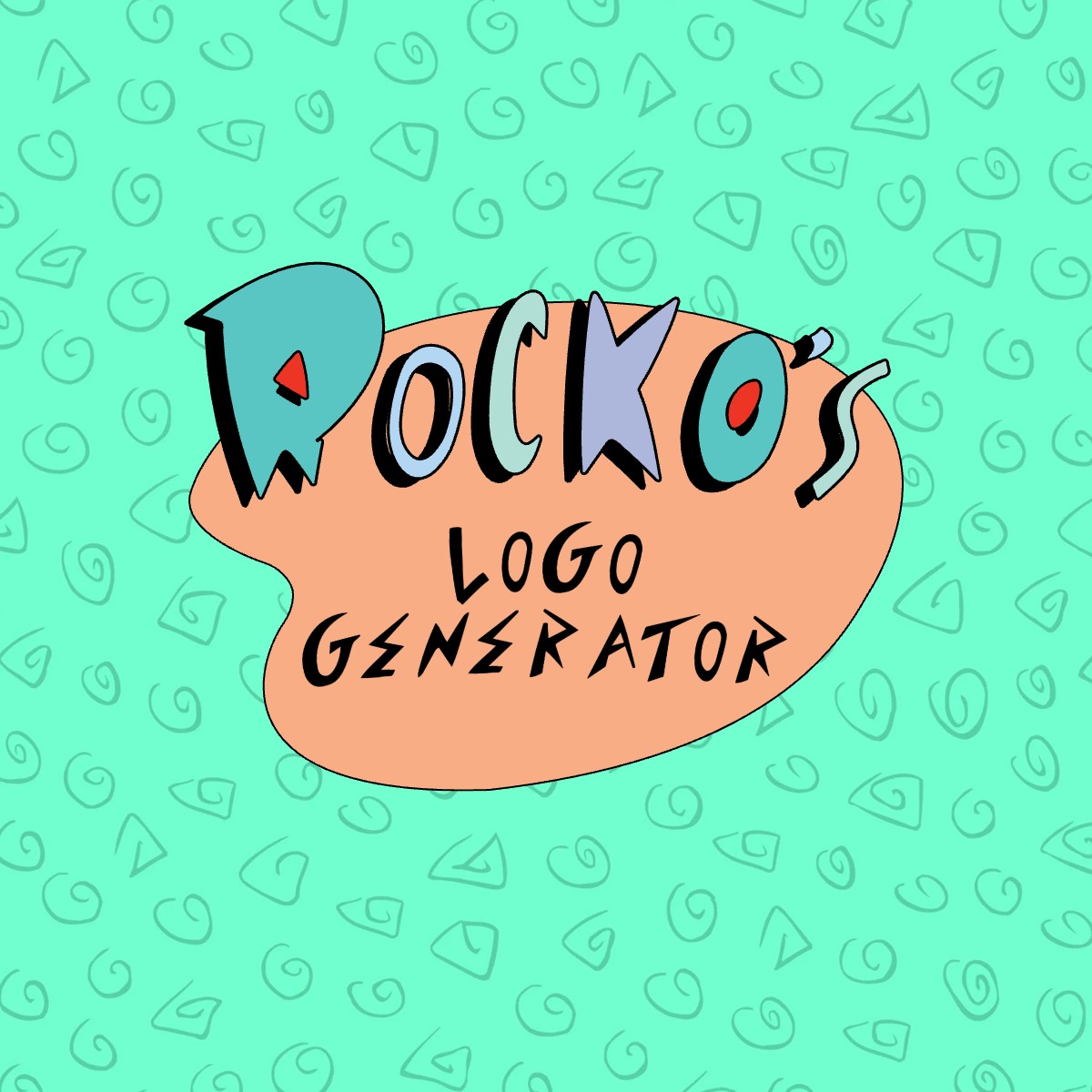
Bring Back a 90’s Classic with the Rocko’s Modern Life Logo & Font Generator.
Ahead of its time and unusually “adult” for a kids cartoon, Nickelodeon’s Rocko’s Modern Life cemented itself as a bizarre fever-dream of a show in millennial childhoods across the world. The wonky animation style and grotesque characters made it seem like we were watching something we shouldn’t – and now you can recapture that feeling with the custom logo generator! Multiple hand-drawn style custom fonts were designed for this one, with custom styling, effects, and background options to match.
This generator rebuilds the arced, hand-lettered wordmark from Rocko's Modern Life out of two text fields: a large curved title and a smaller line beneath it, both sitting inside the show's rounded orange background shape. The title is built from three stacked layers of color and outline, drawn along a slight arc rather than a straight line, and every other letter O in that title is quietly swapped for a different glyph tucked into the same font. Below is a look at how that stack comes together, piece by piece.
Building the wordmark, layer by layer
Everything starts with the rounded orange shape behind the lettering — a single custom vector traced from the show's title card, with its black outline baked directly into the artwork rather than drawn separately. The shape isn't a fixed size: its width is calculated from whatever the longest word in the title turns out to be, then clamped so it never gets too small or too large for the canvas.
A dark offset sitting underneath
Behind the colored lettering sits a solid black duplicate of the title, nudged down and to the left. It's the same trick used in the Street Sharks font logo generator — a flat shadow copy that gives the letters a sense of thickness before any color gets involved.
A thin outline, then the color
On top of that shadow sits a much thinner black stroke, drawn with no offset at all — it hugs the letterforms directly and separates the shadow from the color that comes next. Once the outline is in place, the fill goes on: each letter in the title cycles through a four-color sequence of teals and blues, flowing continuously from one word into the next rather than resetting at every space, similar to the letter-by-letter color logic behind the Nickelodeon logo font generator.
An arc instead of a straight line
Rather than sitting flat, the whole title is drawn along a shallow arc, with the middle of the line curving slightly higher than the ends. Every letter is individually rotated and repositioned to sit on that curve, which is what gives the wordmark its bouncy, hand-drawn feel instead of the mechanically straight baseline a plain fillText call would produce. The smaller line of text underneath follows the exact same curve.
A hidden swap on every other O
Tucked inside the font is a second version of the letter O, living in a private corner of the character set that a typed "o" never normally reaches. The generator quietly alternates between the two: the first O in the title always uses that hidden glyph, the next uses the regular O, and so on back and forth. It's a small detail, in the same spirit as the icon swap built into the SpongeBob SquarePants font logo generator, where certain letters trigger a different shape entirely rather than just changing color.
Claw marks on select letters
Two small decorative shapes ride on top of specific letters once the color fill is down — a curved mark across the R, and a second one layered onto whichever O is using the regular glyph rather than the hidden one. Each shape is sized as a percentage of that particular letter's own width, so they scale correctly no matter how large or small the title ends up being. The hidden-glyph O is deliberately skipped, since decorating an already-different letterform would just look like a mistake.
The second line and the finished lockup
The smaller text field sits in solid black beneath the title, lowercased automatically and wrapped to fit the width of the background shape rather than the canvas as a whole — so no matter how long the second line runs, it stays contained inside the rounded orange outline instead of spilling past its edges. If that field is left empty, the title recenters itself vertically inside the shape instead of sitting near the top, so a single line of text never looks stranded above empty space, a layout adjustment similar to how the Saved by the Bell logo font generator handles a missing subtitle.
A hand-drawn show about an unraveled wallaby
Rocko's Modern Life premiered on Nickelodeon in 1993, following an Australian wallaby who moves to the fictional city of O-Town and immediately finds the pace and absurdity of modern life a little too much to handle. Created by Joe Murray, the show ran for four seasons and became known for an anxious, adult-leaning sense of humor tucked inside bright, rubbery character designs — a tone that helped define the network's early identity alongside contemporaries like the Blue's Clues font logo generator and other Nickelodeon staples of the era.